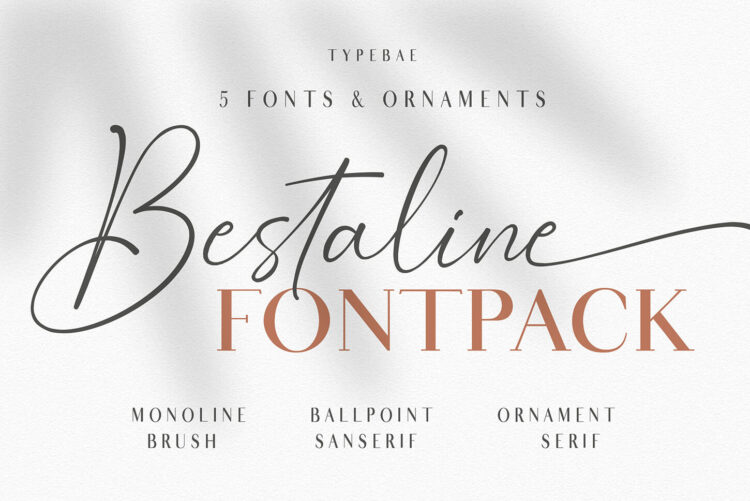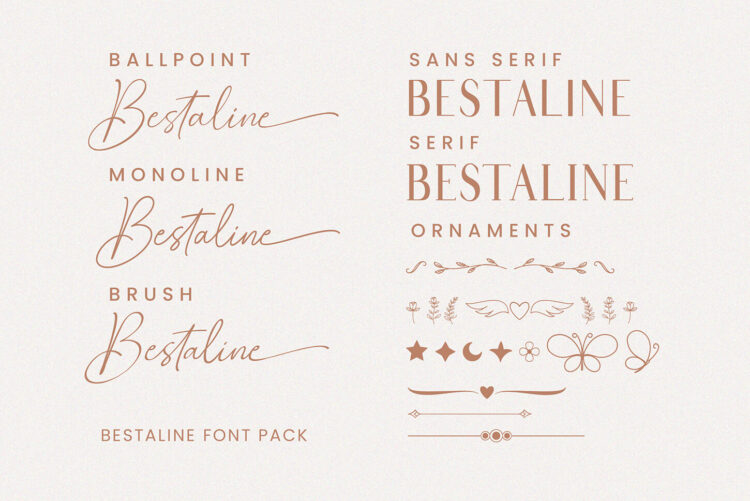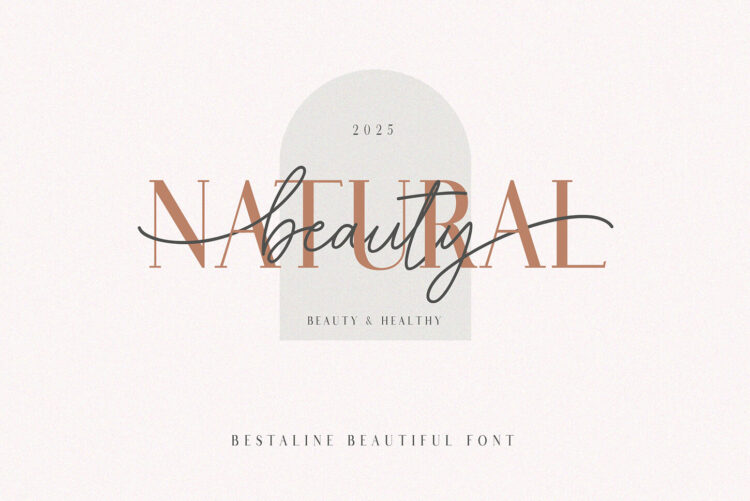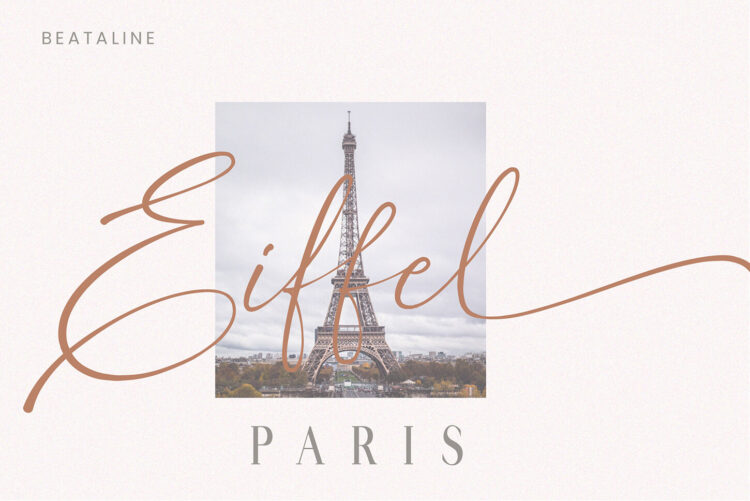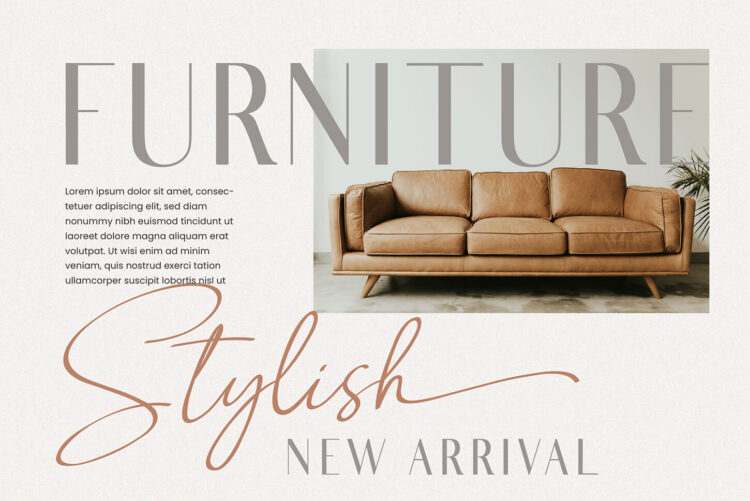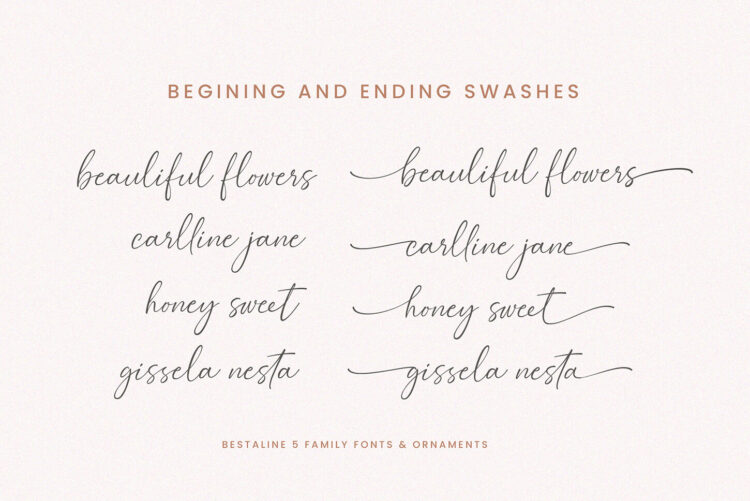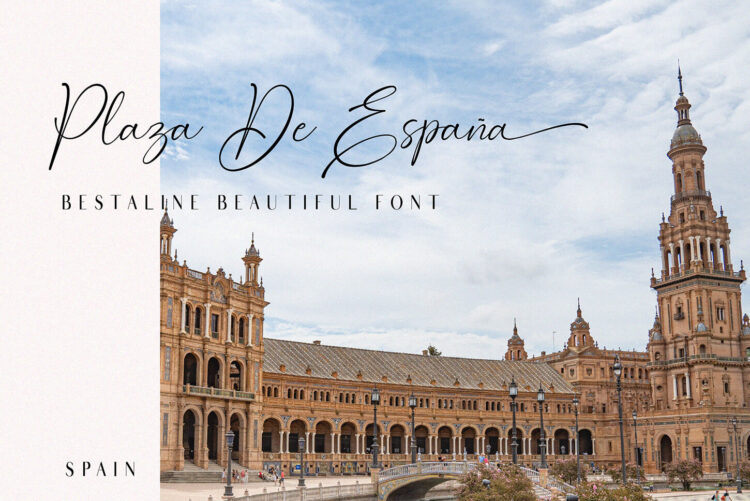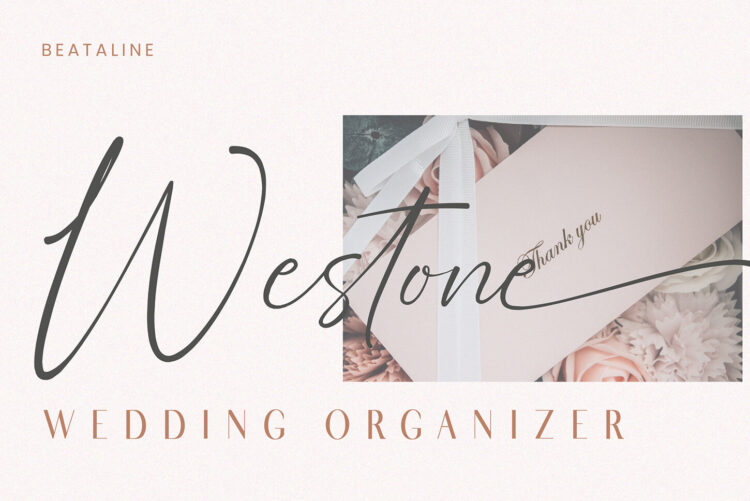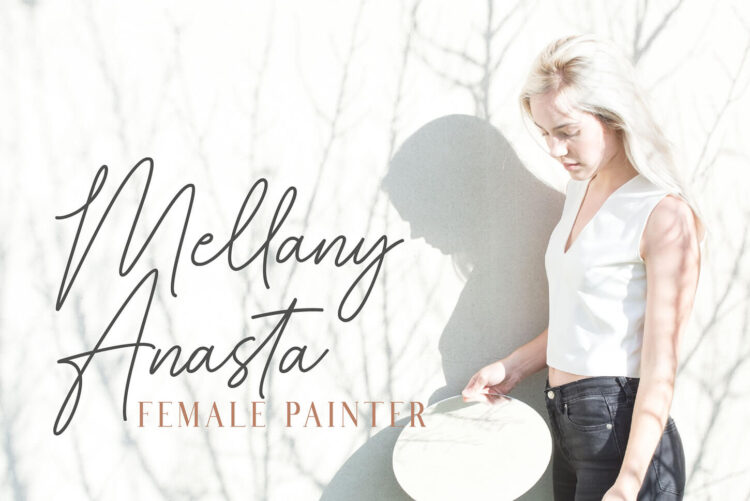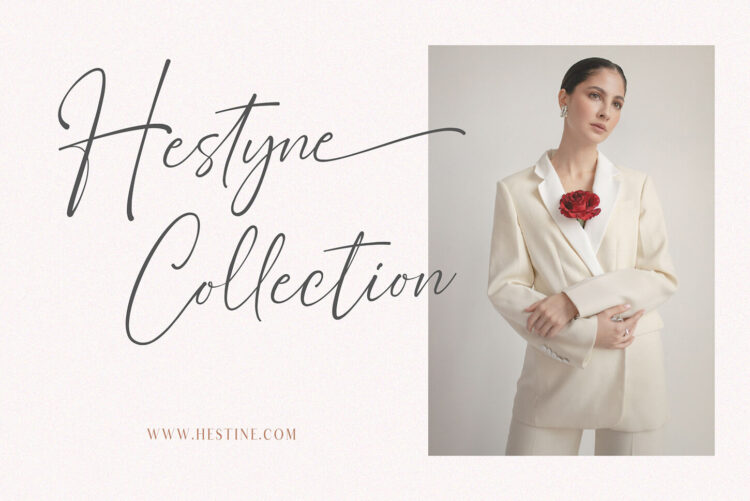
Bestaline is a versatile font pack. It has 5 styles of fonts and ornaments, can be used and combined for various projects.
To use the beginning and ending swashes ( tails ) you don’t need to use software that supports opentype, because we have made it separately so it’s very easy to use.